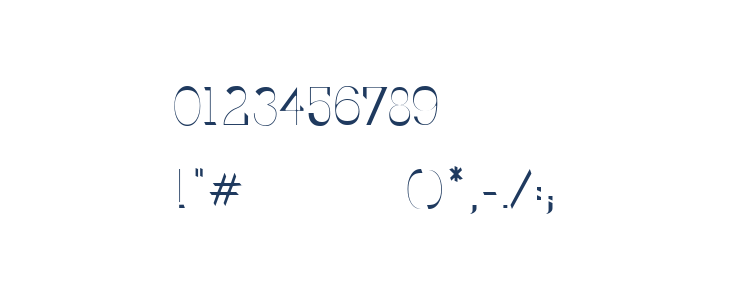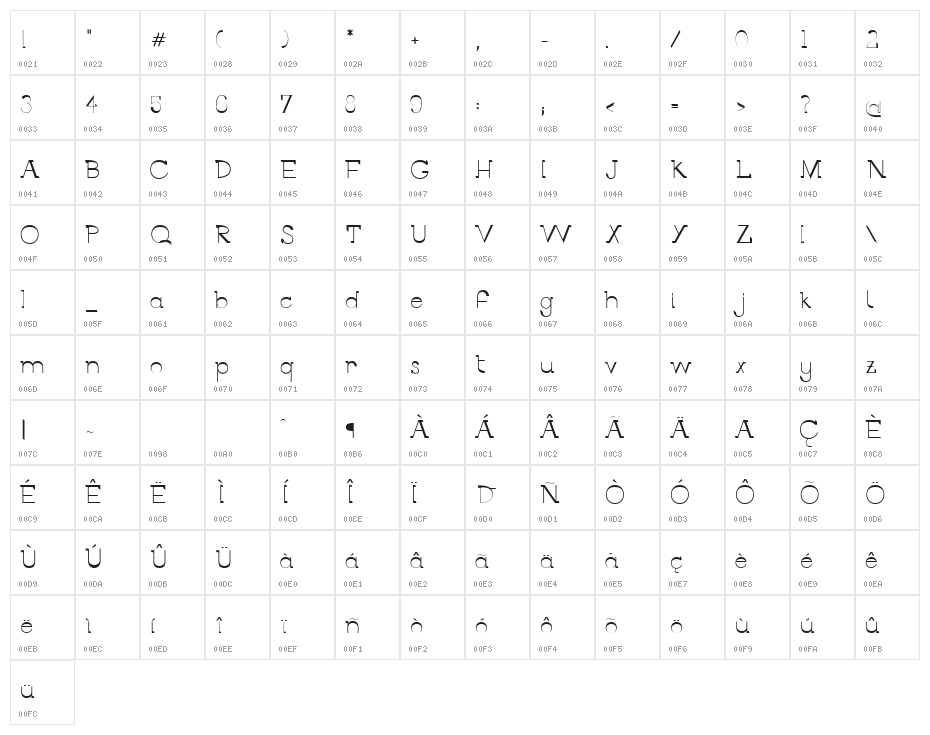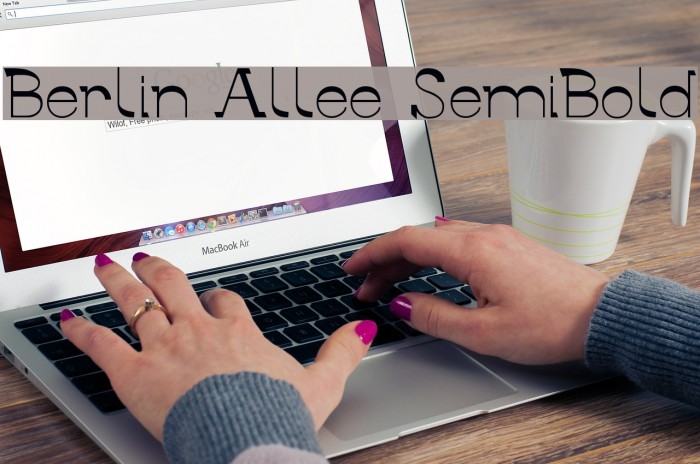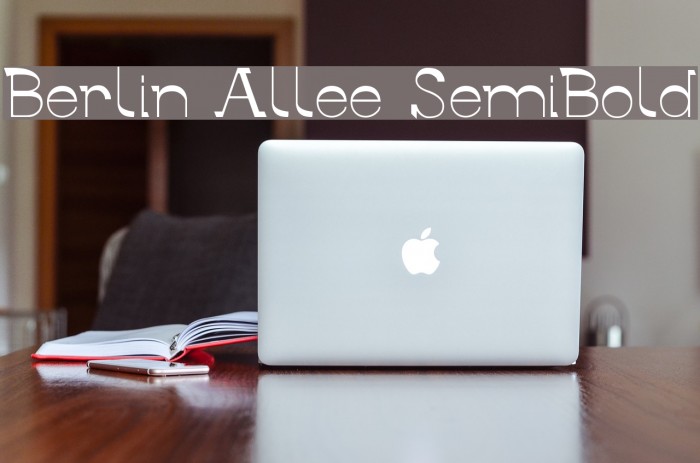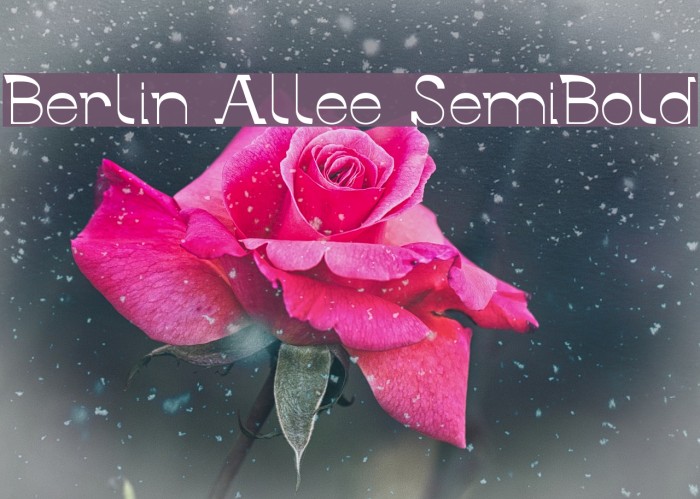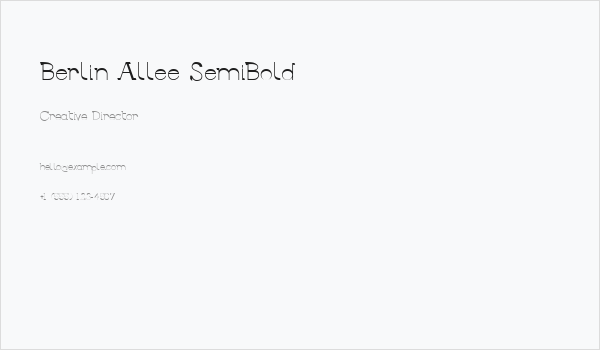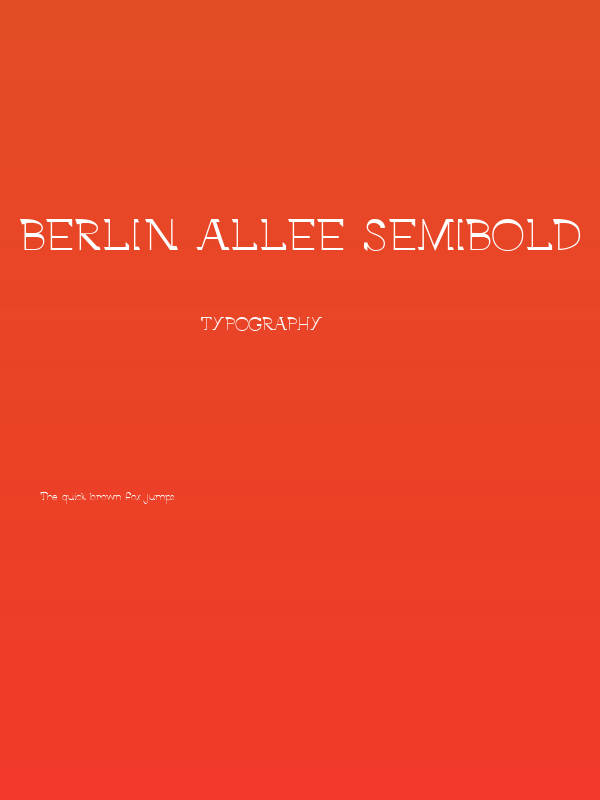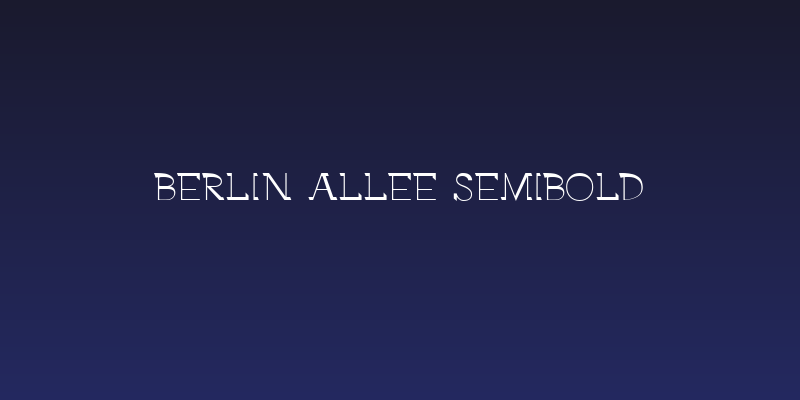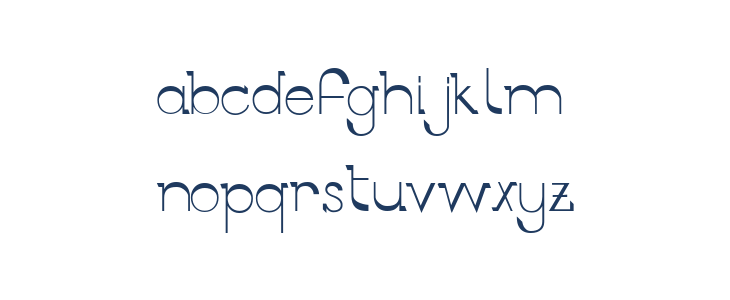
Berlin Allee SemiBold Font
Berlin Allee SemiBold Description
This font exhibits a modern and geometric style with a unique blend of sharp angles and smooth curves. The uppercase letters are bold and striking, featuring distinct cutouts and asymmetrical elements that add a contemporary flair. The lowercase letters maintain a consistent style, with a slightly more subdued appearance but still retaining the geometric influence. The numerals are clear and legible, following the same design principles as the letters. Special characters are creatively integrated, maintaining the overall aesthetic. This font is suitable for projects that require a modern and distinctive look.
| Proposed Projects | Ideal for branding, advertising, posters, and modern web design projects. |